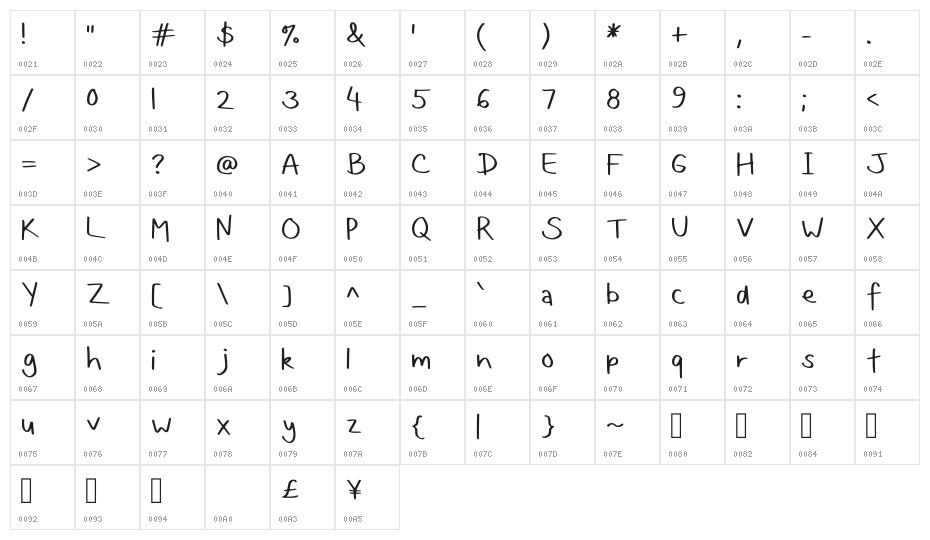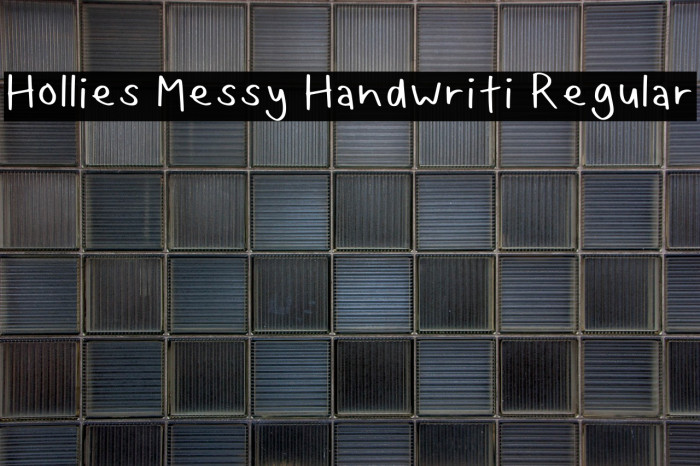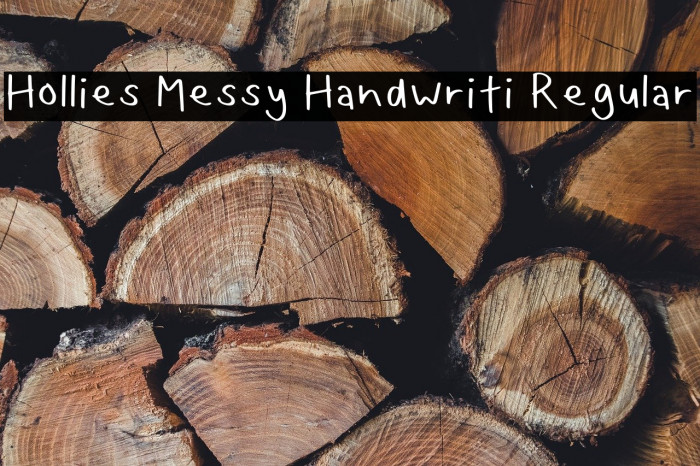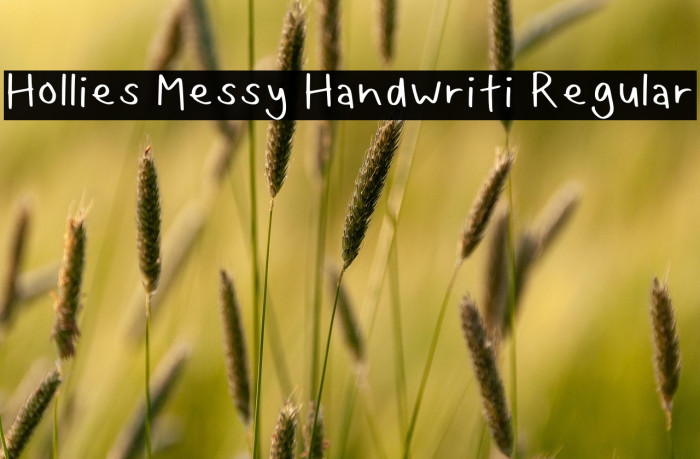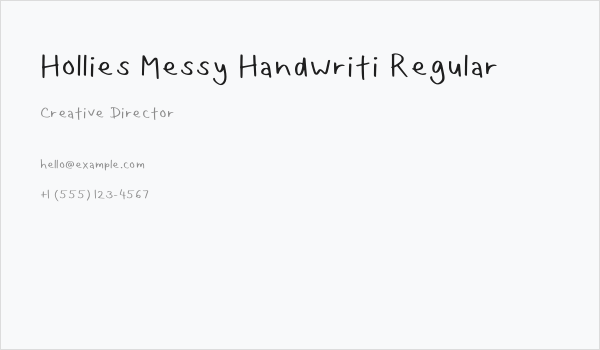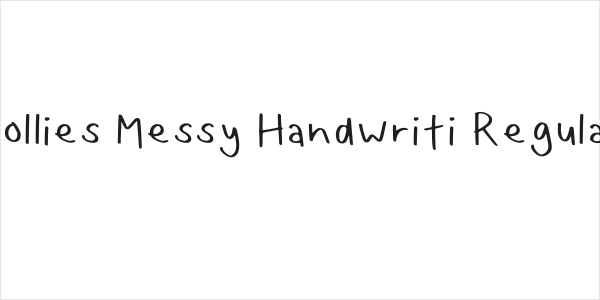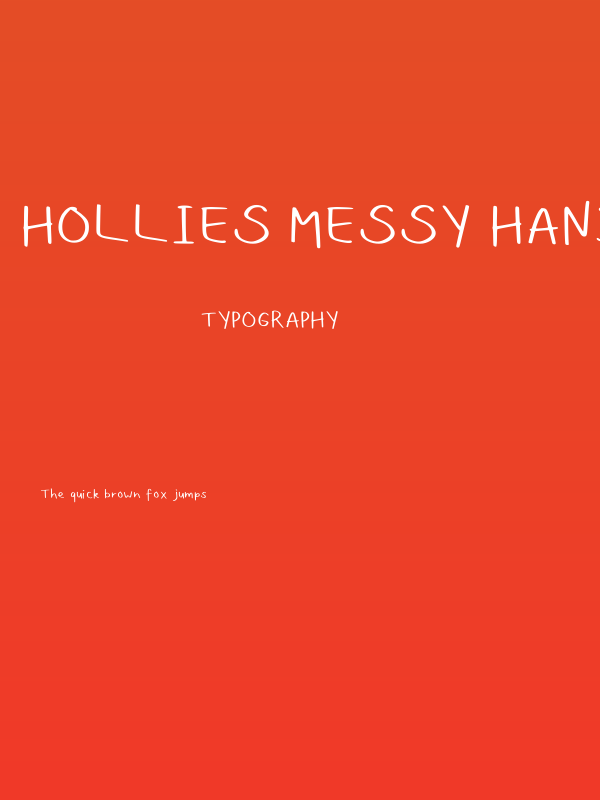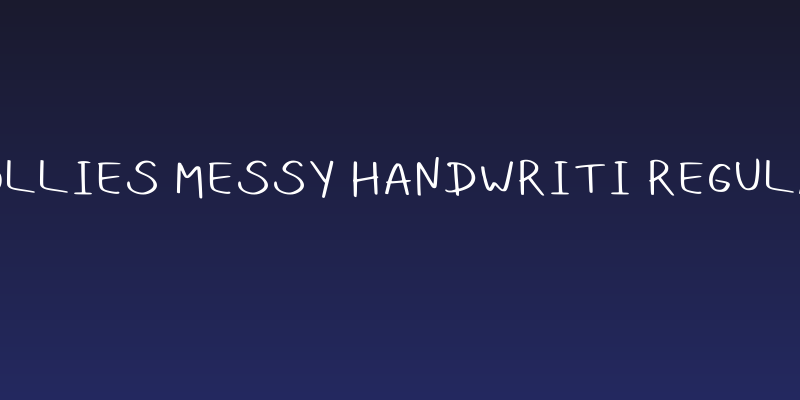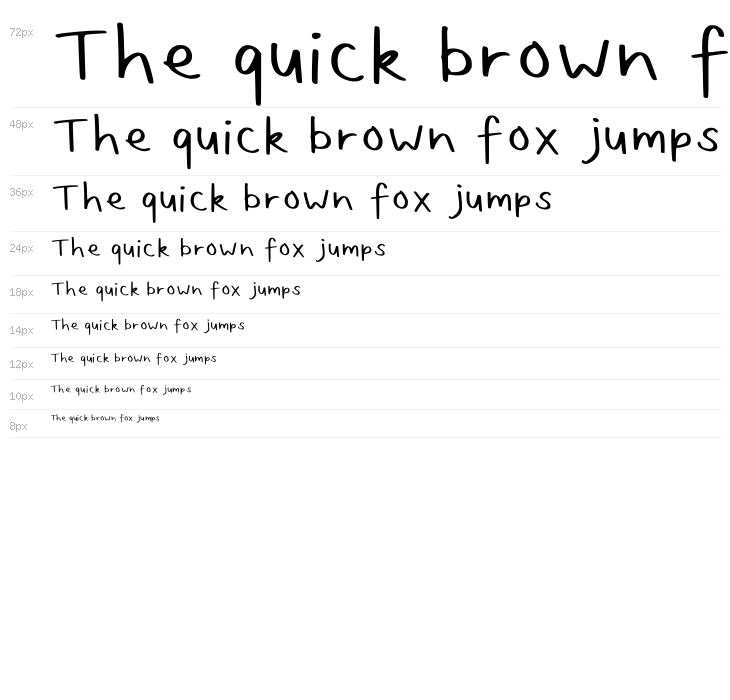
Hollies Messy Handwriti Regular Font
Hollies Messy Handwriti Regular Description
This font exudes a casual and playful handwritten style, characterized by its uneven strokes and informal appearance. The letters are slightly irregular, mimicking the natural flow of handwriting. The uppercase and lowercase letters maintain a consistent style, with rounded edges and a slightly tilted orientation, adding to its whimsical charm. Numbers and special characters follow the same playful aesthetic, making it suitable for projects that require a personal touch. The overall look is approachable and friendly, perfect for designs that aim to convey warmth and authenticity.
| Use Case | Greeting cards, Personal notes, Informal branding |
| Proposed Projects | Ideal for greeting cards, personal notes, children's books, and informal branding. |